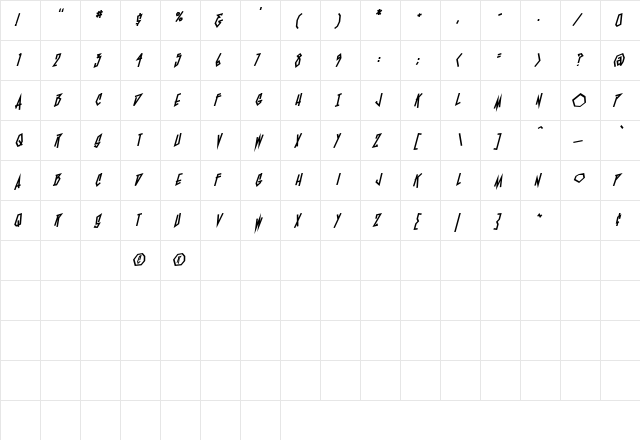
BlamBlam Heavy BB Regular
| Foundry | Nate Piekos. Blambot.com |
| Designer | Nate Piekos |
Design Context for BlamBlam Heavy BB Typeface
BlamBlam Heavy BB is a composed and adaptable typeface that performs quietly and consistently across a wide range of design contexts.